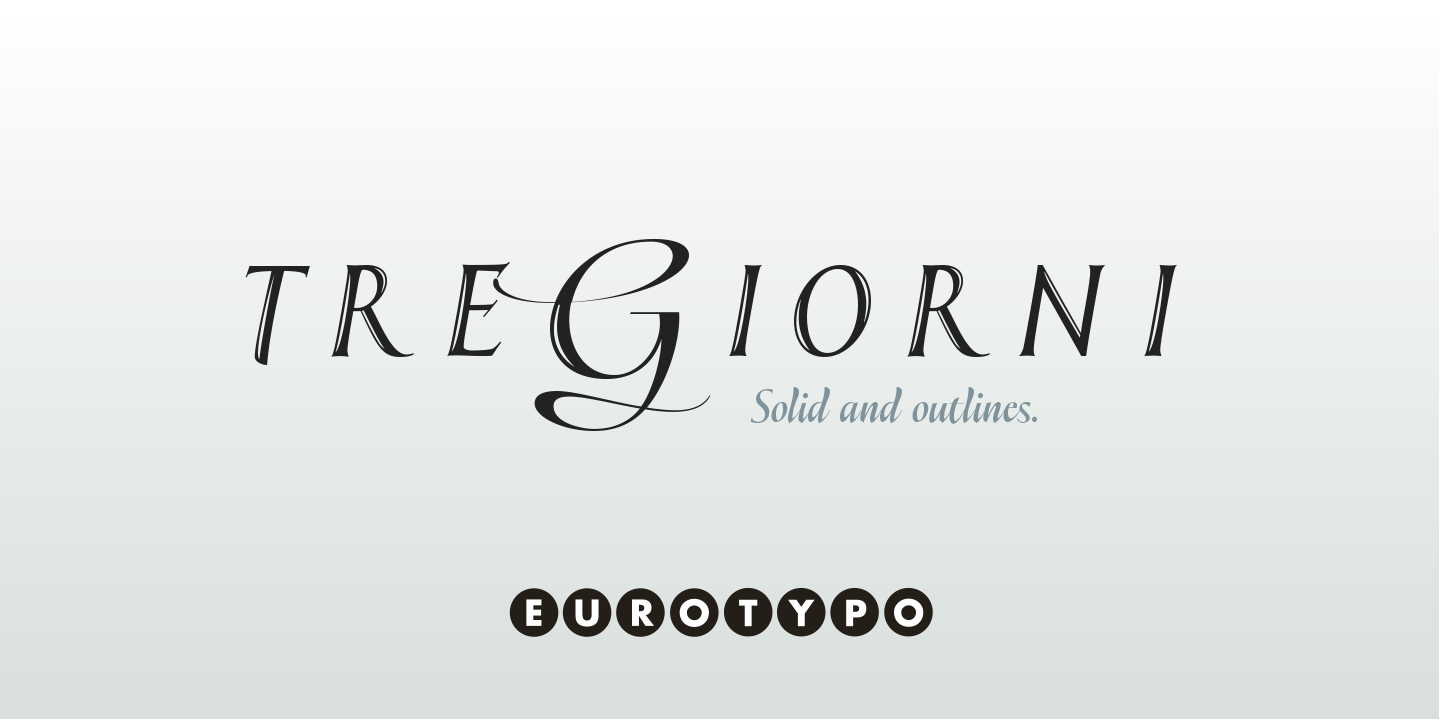
This sophisticated font is perfect for Italian restaurant branding, luxury European travel campaigns, fine wine labeling, high-end fashion magazines, cultural festival promotions, artisan food packaging, Mediterranean lifestyle brands, and elegant hospitality marketing. Its refined character makes it ideal for projects requiring European sophistication and Italian cultural authenticity.
Tre Giorni Font is exciting because it captures the timeless elegance of Italian design tradition with letterforms that embody the artistic heritage and cultural refinement of Italy's greatest cities. The font features classical proportions, elegant curves, and sophisticated details that reflect centuries of Italian craftsmanship and artistic excellence. Its cultured personality instantly communicates quality, tradition, and the irresistible charm of la dolce vita lifestyle.
The Tre Giorni Font family typically includes multiple weights and elegant variations, along with classical European ornaments, Italian-inspired symbols, and sophisticated decorative elements. Many versions feature stylistic alternates, refined ligatures, and traditional glyphs that enhance the authentic Italian aesthetic and cultural authenticity.
Whether you're developing luxury Italian brands, European cultural campaigns, or sophisticated hospitality experiences, Tre Giorni Font Free Download provides authentic Italian sophistication with contemporary functionality. This typeface transforms standard communications into cultured expressions that resonate with audiences who appreciate European refinement, Italian artistry, and the timeless appeal of Mediterranean living. Its distinctive character adds immediate cultural credibility while celebrating the enduring beauty of Tre Giorni Font Free Download and the rich artistic heritage that makes Italian design eternally influential.